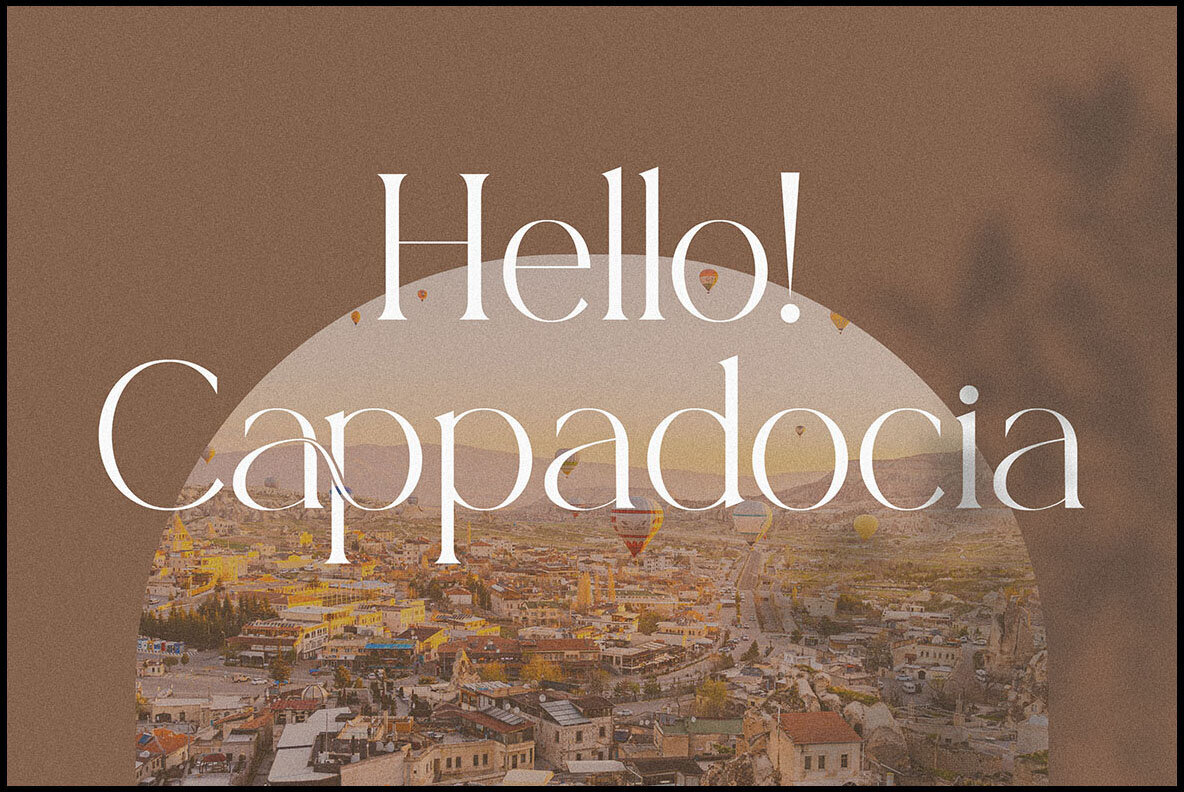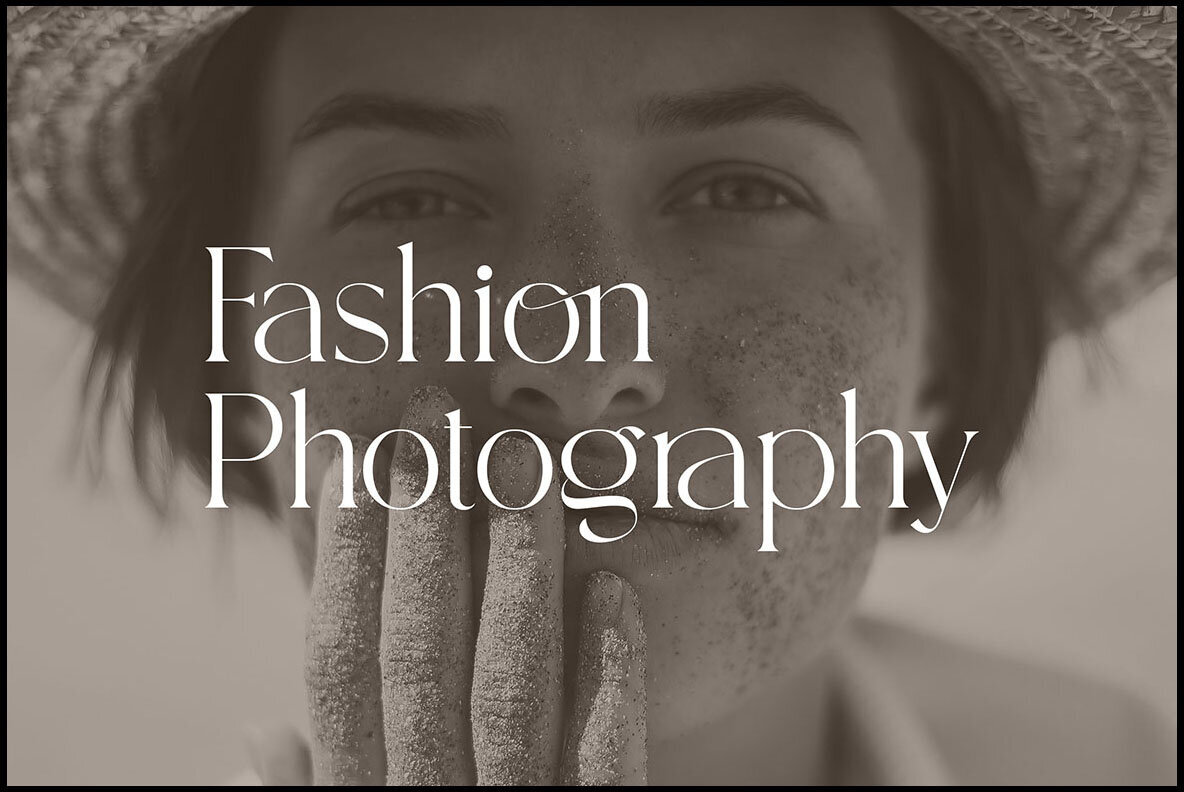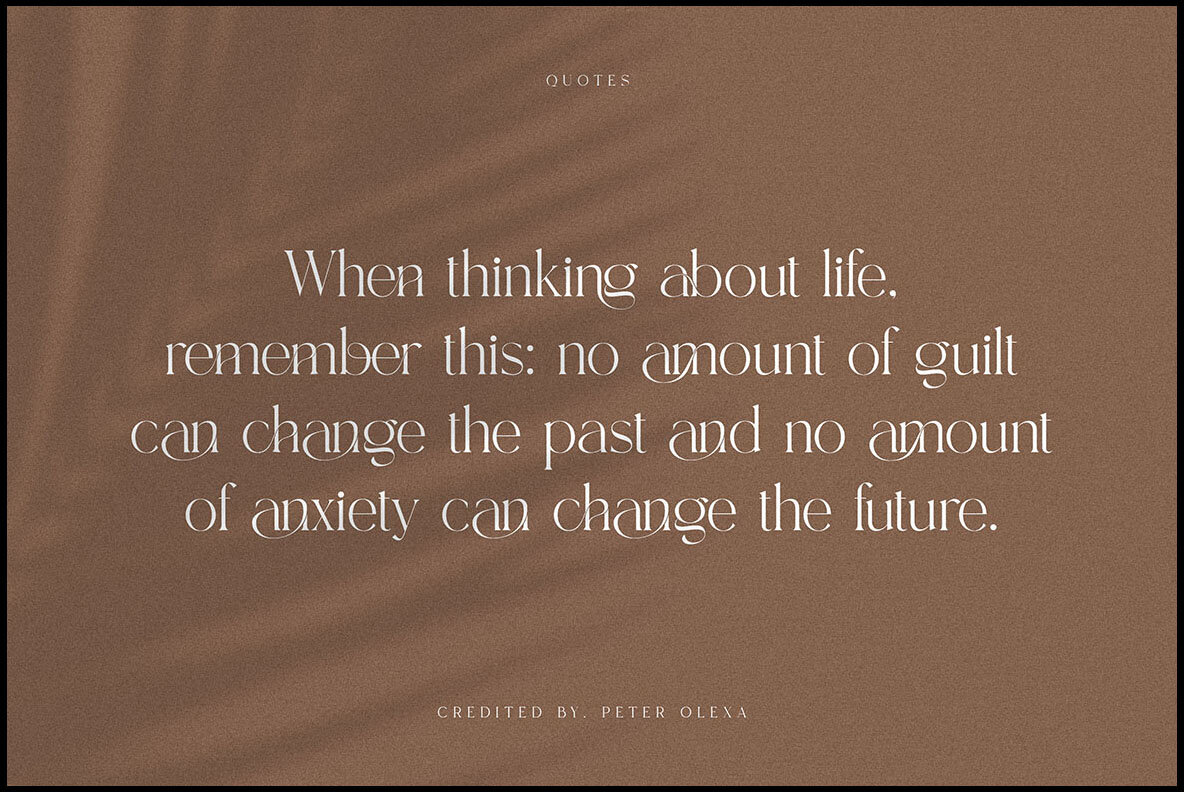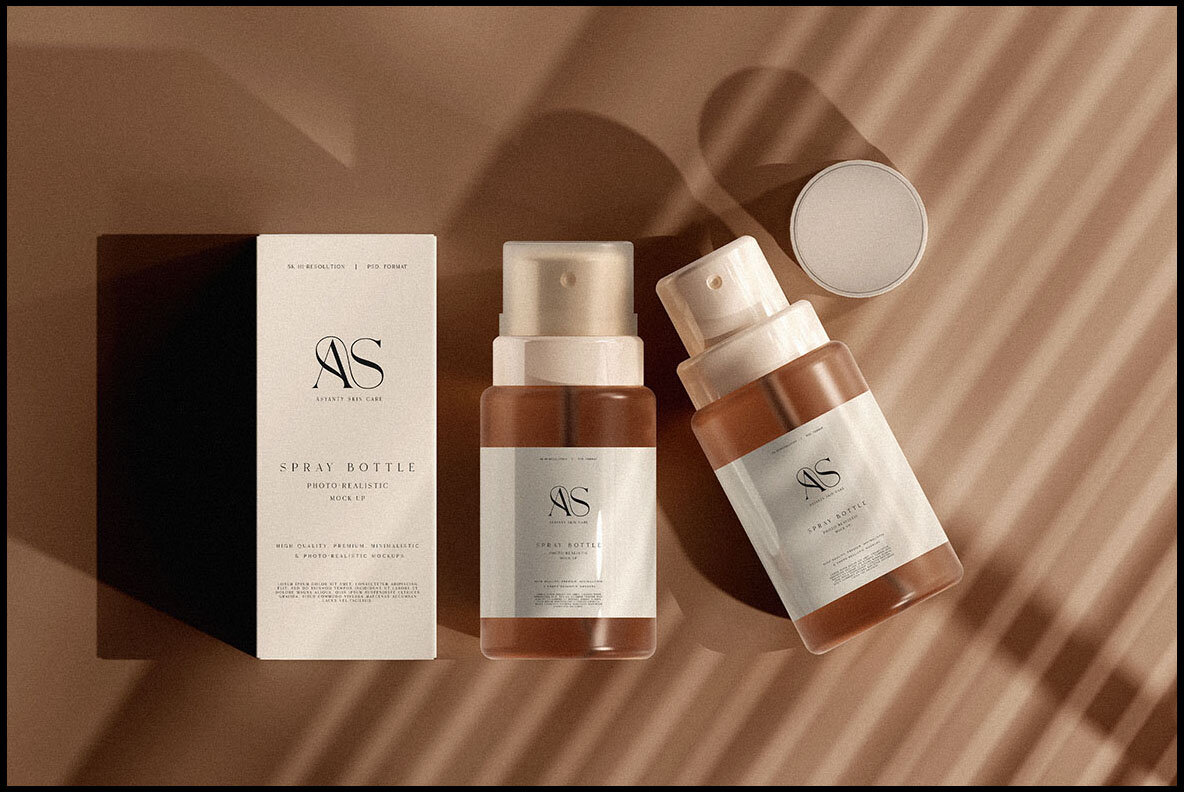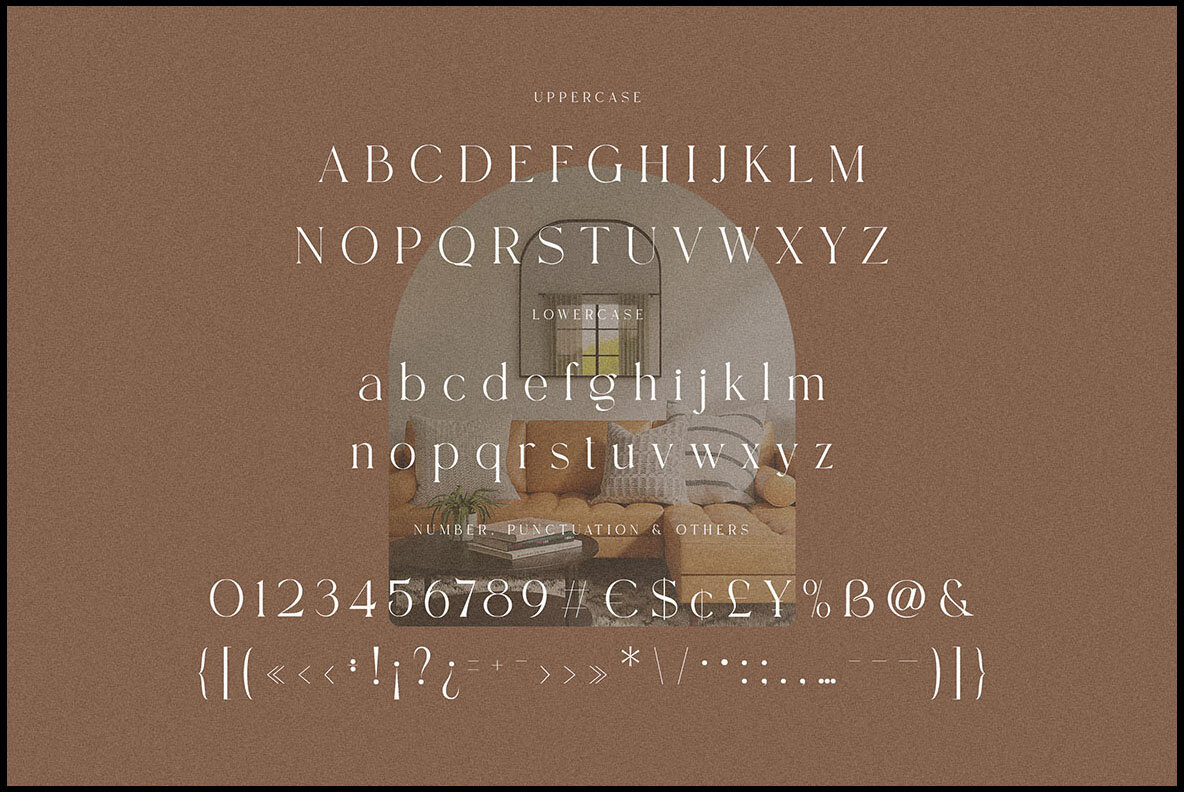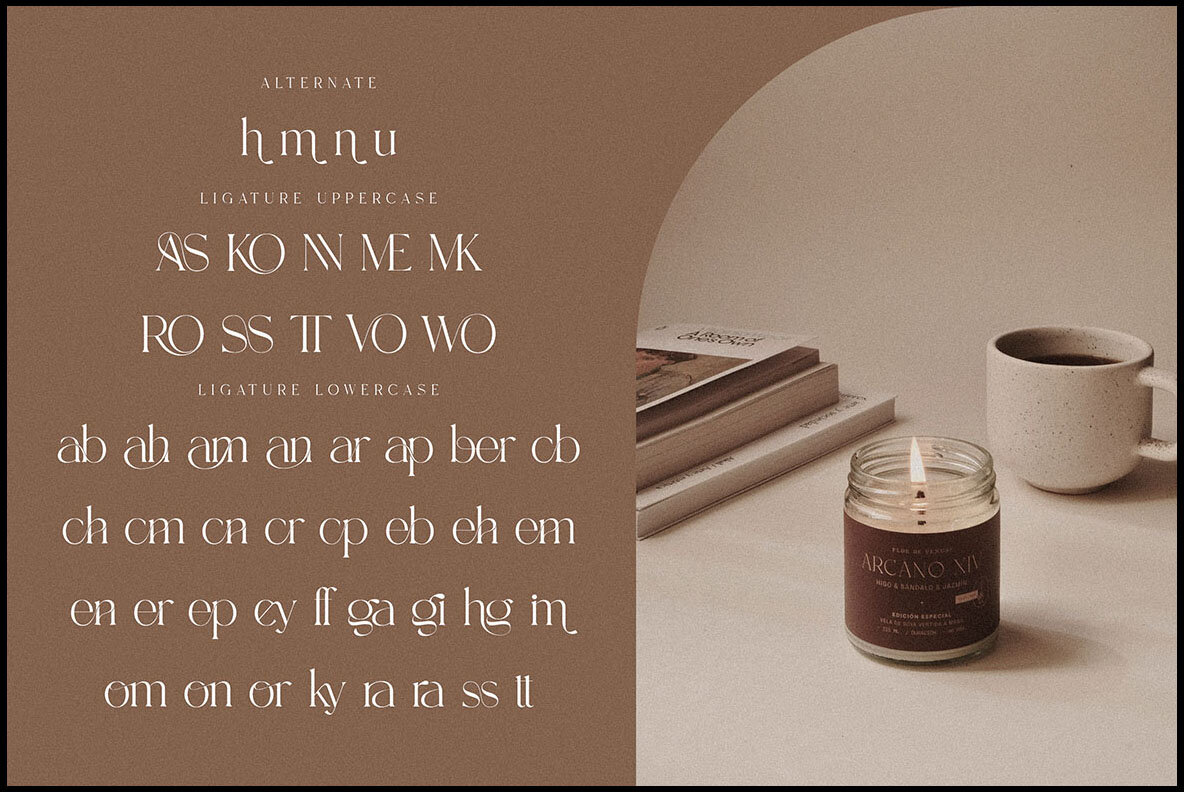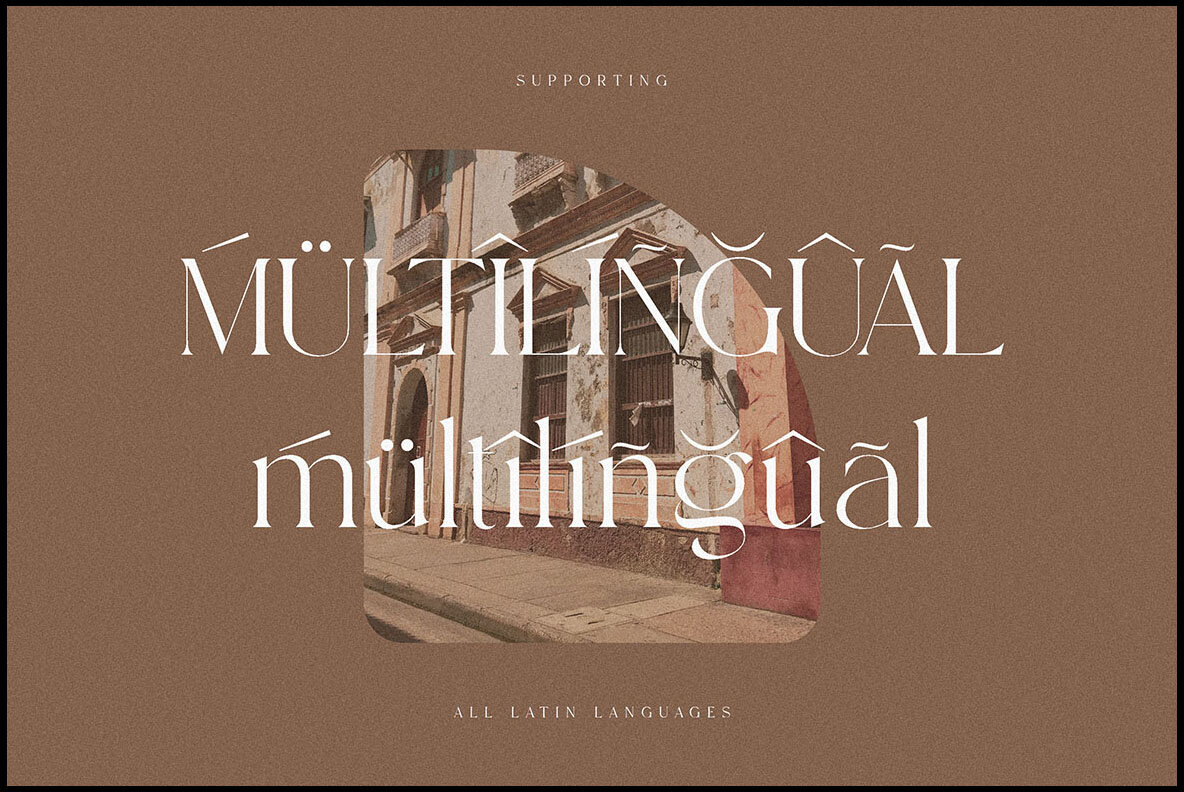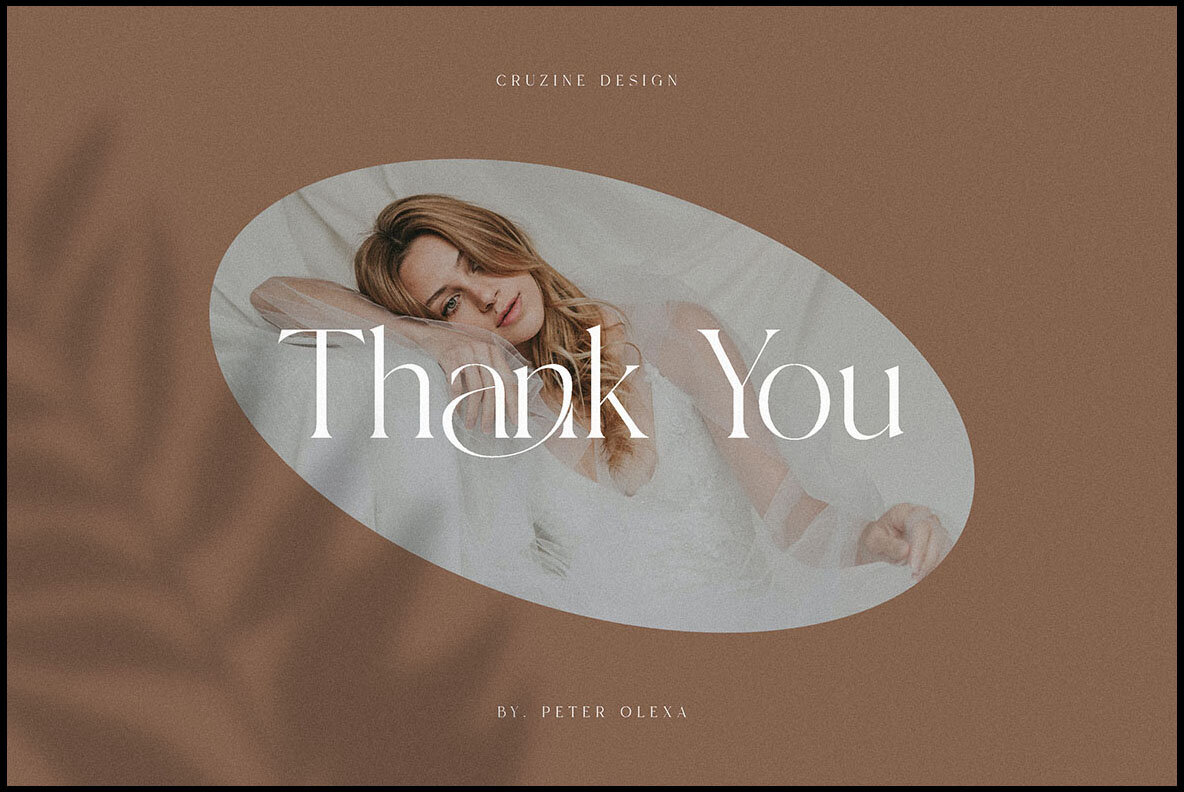
Wimberley Font
Wimberley by Peter Olexa is a trendy and classy serif font perfect for adding a touch of elegance and modernity to your projects. Its graceful style makes it ideal for branding, whether for logos or website headers. With numerous alternates and ligatures, you can craft unique and original designs effortlessly.Wimberley: Classy Serif Font for Elegant Projects